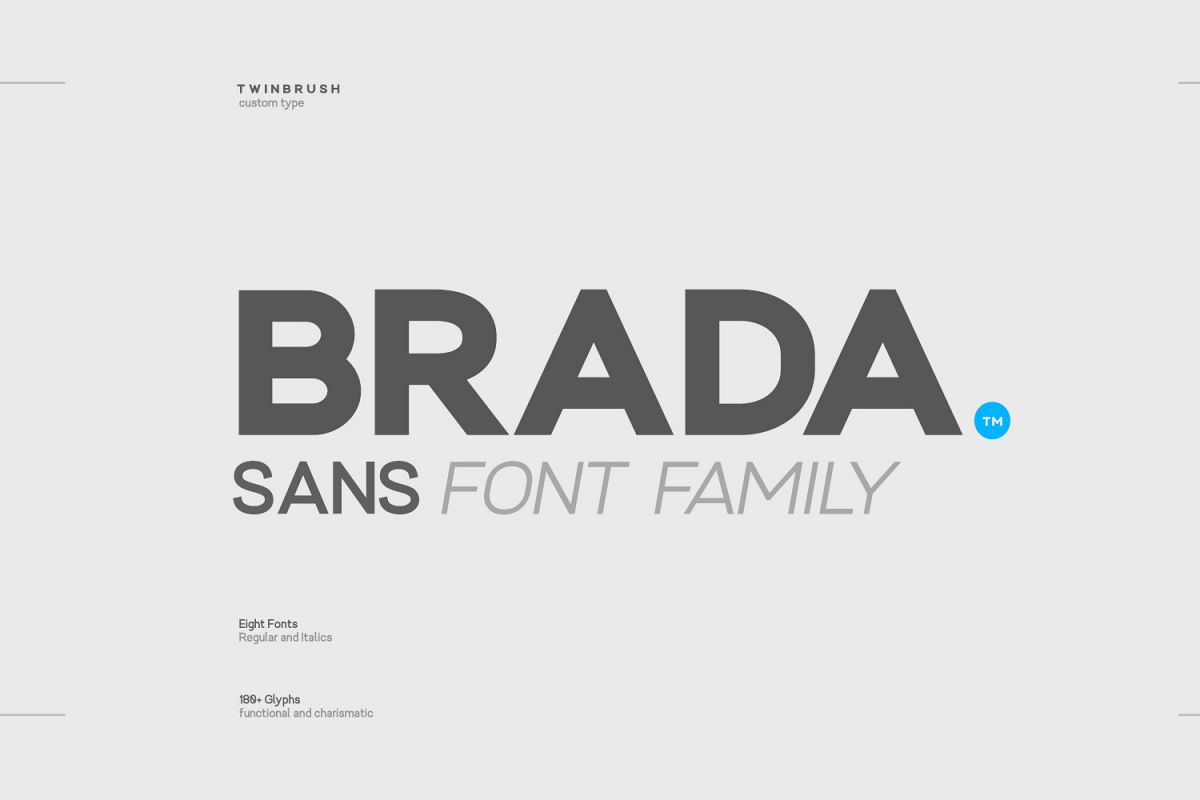
Brada - A Powerful Sans Font Family
Brada is a versatile and powerful font family, created especially for graphic designers.
Brada sans is a family of eight fonts, created as an answer to many tasks that I face daily as a designer. Robust, clean and modern it is ideal for corporate documents and layouts, but with its clear legibility and the subtle, softer personality of the lowercase forms it is built for branding and logo design and perfectly at home when used in longer runs of body copy in print, web and mobile app projects.
MULTI-LANGUAGE SUPPORT
With over 180 characters, Brada sans supports multiple languages, including; Afrikaans, Albanian, Danish, Dutch, English, Estonian, Finnish, French, German, Irish, Italian, Norwegian, Polish, Portuguese, Slovak, Slovenian, Spanish, Swedish, Zulu.
ROBUST AND VERSATILE
Brada sans is a powerful and thorough typeface, great for use in logo design, book, magazine and corporate document layouts, blogs, web design and mobile app development. The combination of weights provide a ready supply of creative options for whatever task you have.